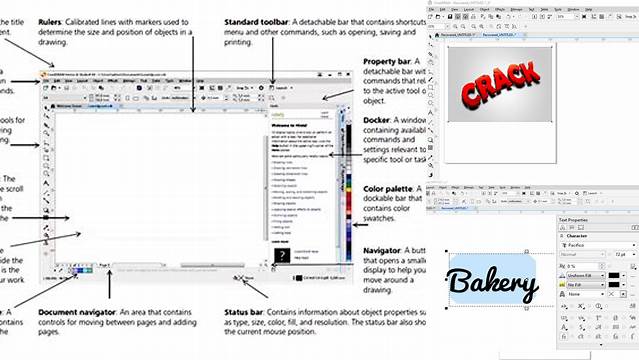
Download Fonts For CorelDraw: Free And Easy Guide
Hey guys! Are you looking to download fonts for CorelDraw to spice up your design projects? You've come to the right place! CorelDraw is an amazing vector graphics editor, but having the right fonts can truly make your work stand out. In this guide, we'll walk you through everything you need to know about finding, downloading, installing, and managing fonts for CorelDraw. We'll also cover some common issues and how to troubleshoot them. So, let's dive in and get those creative juices flowing!
Why Fonts Matter in CorelDraw
Fonts are the backbone of any design, especially in programs like CorelDraw where typography plays a crucial role. Your font choices can drastically impact the mood, readability, and overall aesthetic of your project. Think about it – a sleek, modern sans-serif font can give a tech-savvy vibe, while an elegant script font might be perfect for wedding invitations. Using the right fonts helps you communicate your message effectively and ensures your designs are visually appealing.
In CorelDraw, fonts are more than just text; they are design elements. A well-chosen font can enhance logos, brochures, posters, and any other graphic design project you're working on. But here’s the deal: CorelDraw comes with a decent selection of fonts, but to truly unlock your creative potential, you'll want to expand your font library. This is where downloading fonts for CorelDraw comes into play. The ability to integrate new and unique fonts can set your designs apart, making them more professional and engaging. Imagine creating a poster with a font that perfectly captures the essence of the event, or designing a logo that uses a typeface that’s both memorable and brand-appropriate. The possibilities are endless when you have a diverse font collection at your fingertips.
Fonts also play a significant role in maintaining brand consistency. If you’re working on a branding project, selecting specific fonts and sticking to them across all materials (logos, websites, marketing collateral) helps create a cohesive and recognizable brand identity. This consistency builds trust and familiarity with your audience. Moreover, understanding the different types of fonts – serif, sans-serif, script, decorative – and how they communicate different moods and messages is crucial for effective design. For example, serif fonts like Times New Roman or Garamond often convey a sense of tradition and formality, making them suitable for corporate documents or books. Sans-serif fonts like Arial or Helvetica, on the other hand, are more modern and clean, making them ideal for websites and digital designs. Script fonts can add a touch of elegance and personality, perfect for invitations or logos that require a handwritten feel. Decorative fonts are the wild cards, great for headlines and eye-catching designs, but they should be used sparingly to avoid overwhelming the reader.
So, guys, selecting the right fonts is not just about making your design look pretty; it’s about communicating effectively, maintaining brand consistency, and unlocking your creative potential in CorelDraw. Let's explore how to find, download, and manage those fonts to make your projects shine!
Finding Fonts to Download for CorelDraw
Okay, so you know why fonts are important, but where do you actually find these awesome typefaces? The good news is, the internet is brimming with resources for downloading fonts for CorelDraw. However, with so many options, it can be a bit overwhelming. Let’s break down the best places to look and what to keep in mind.
Popular Font Websites
There are tons of websites offering fonts, both free and premium. Here are a few of the most popular and reliable ones:
- Google Fonts: This is a goldmine for free fonts! Google Fonts offers a vast library of open-source fonts that are incredibly easy to use. The best part? They’re all free for commercial use. The interface is user-friendly, allowing you to filter fonts by category, style, and even language. You can also preview how the fonts look in different sizes and contexts, making it easier to choose the perfect one for your project. Plus, Google Fonts integrates seamlessly with web design, so you can use the same fonts on your website as you do in your CorelDraw projects.
- Adobe Fonts (formerly Typekit): If you’re an Adobe Creative Cloud subscriber, you have access to Adobe Fonts, a fantastic resource with thousands of high-quality fonts. Adobe Fonts offers a curated selection of typefaces, ensuring that you're working with professional-grade fonts that are optimized for both print and digital use. The fonts are licensed for both personal and commercial use, giving you peace of mind. The integration with Adobe Creative Cloud apps, including CorelDraw (through font management software), is seamless, making it easy to activate and use fonts in your projects.
- Font Squirrel: Font Squirrel is another excellent resource for free, commercial-use fonts. They carefully curate their selection, ensuring that all fonts are of high quality and properly licensed. The site also offers a handy Font Identifier tool, which helps you identify fonts from images – super useful if you stumble upon a font you love but don’t know the name of. Font Squirrel is a great place to discover unique and interesting fonts that you might not find on other platforms.
- MyFonts: MyFonts is a premium font marketplace with a massive selection of fonts from various foundries and designers. While you’ll have to pay for most fonts here, the quality and variety are top-notch. MyFonts offers a wide range of fonts, from classic typefaces to cutting-edge designs. The site’s intuitive search and filtering options make it easy to find the perfect font for your specific needs. Plus, MyFonts provides detailed information about each font, including its designer, usage recommendations, and available weights and styles.
- DaFont: DaFont is a popular choice for free fonts, offering a vast collection organized by themes and styles. However, it’s crucial to be mindful of licensing when downloading from DaFont, as some fonts may only be free for personal use. DaFont’s extensive library includes everything from basic sans-serifs to quirky display fonts. The site is user-friendly, allowing you to preview fonts with your own text before downloading. However, always double-check the license to ensure you're complying with the terms of use, especially if you plan to use the fonts for commercial projects.